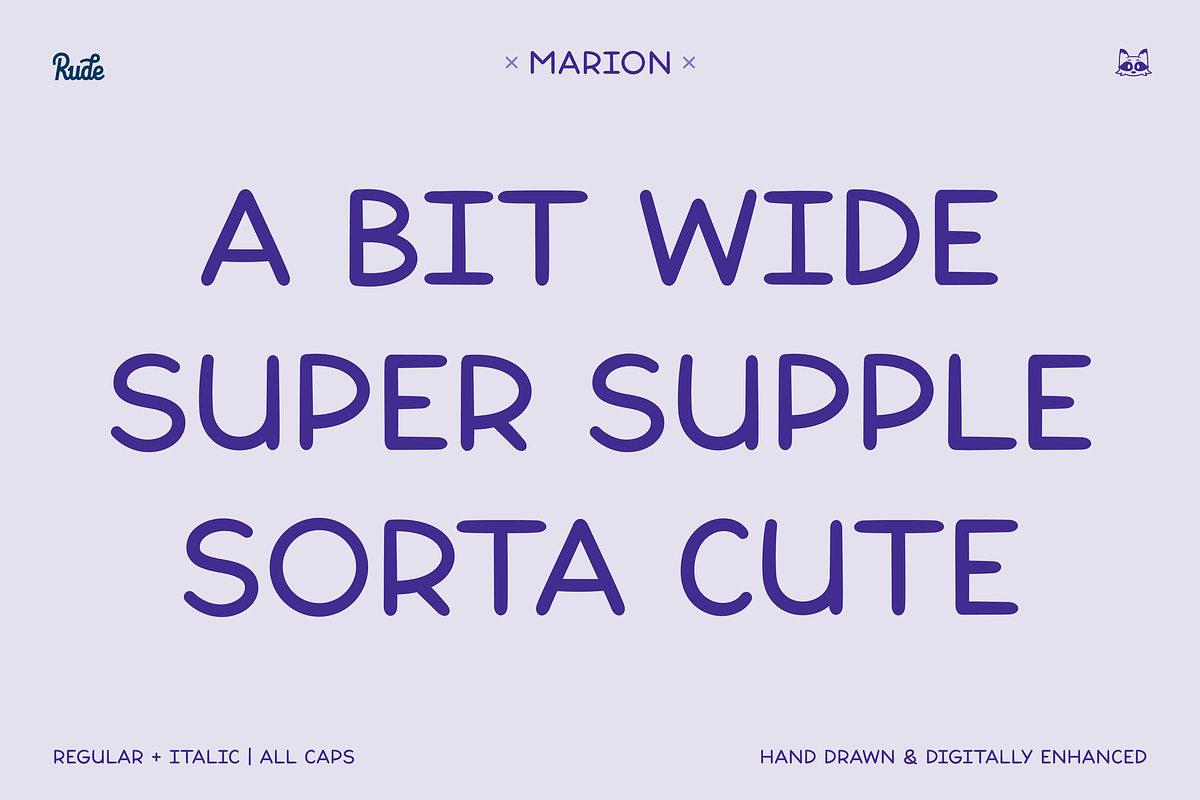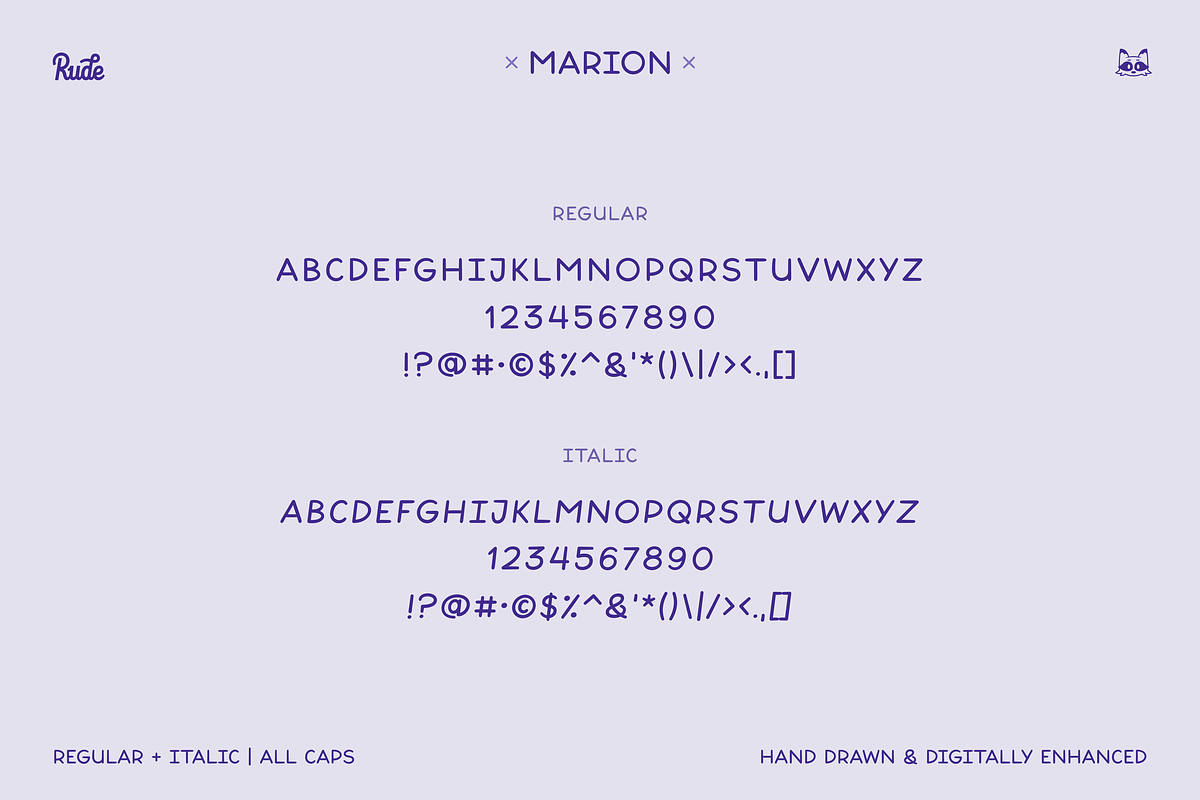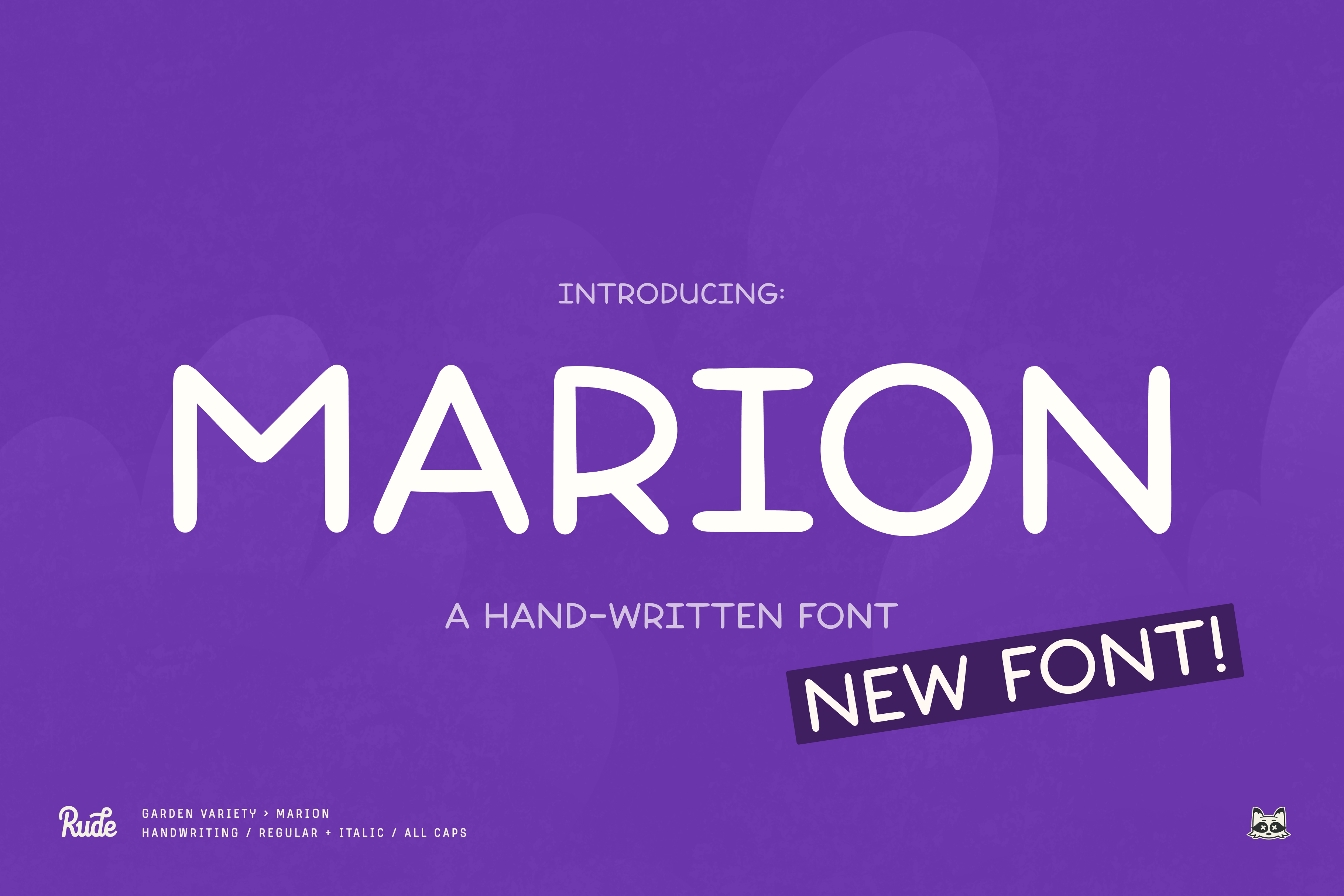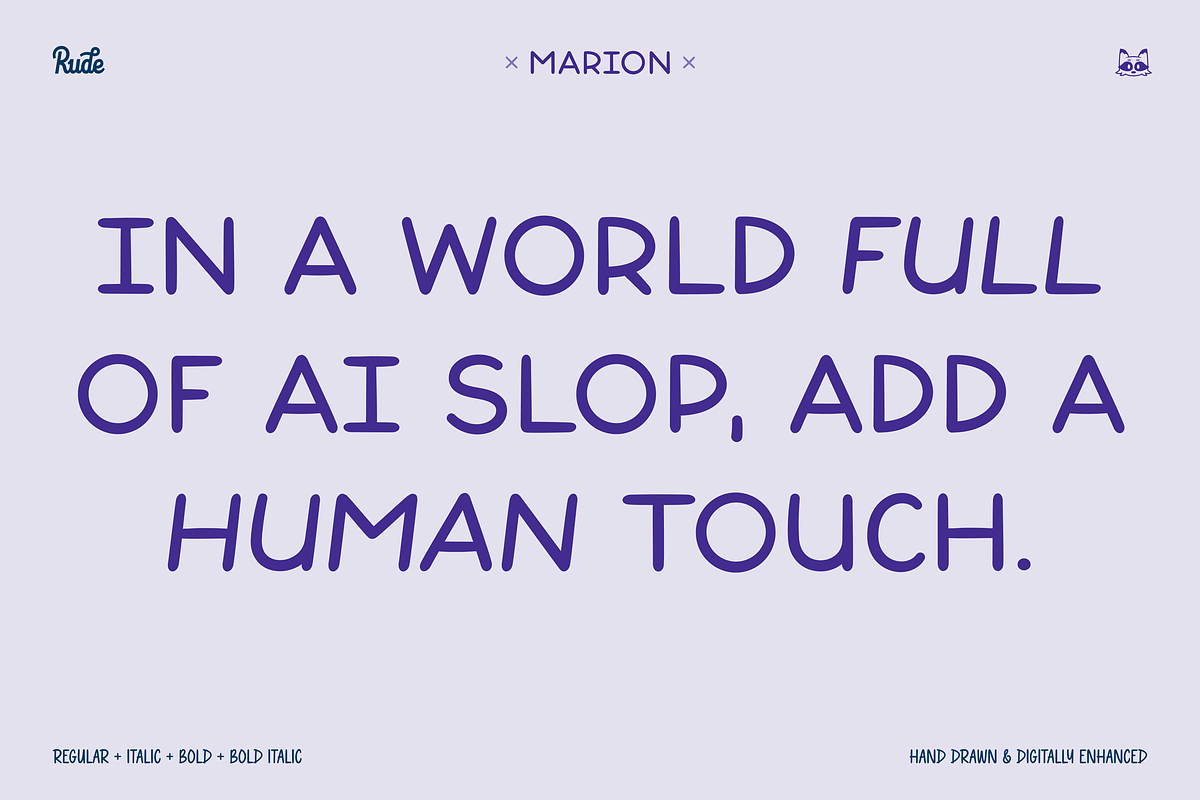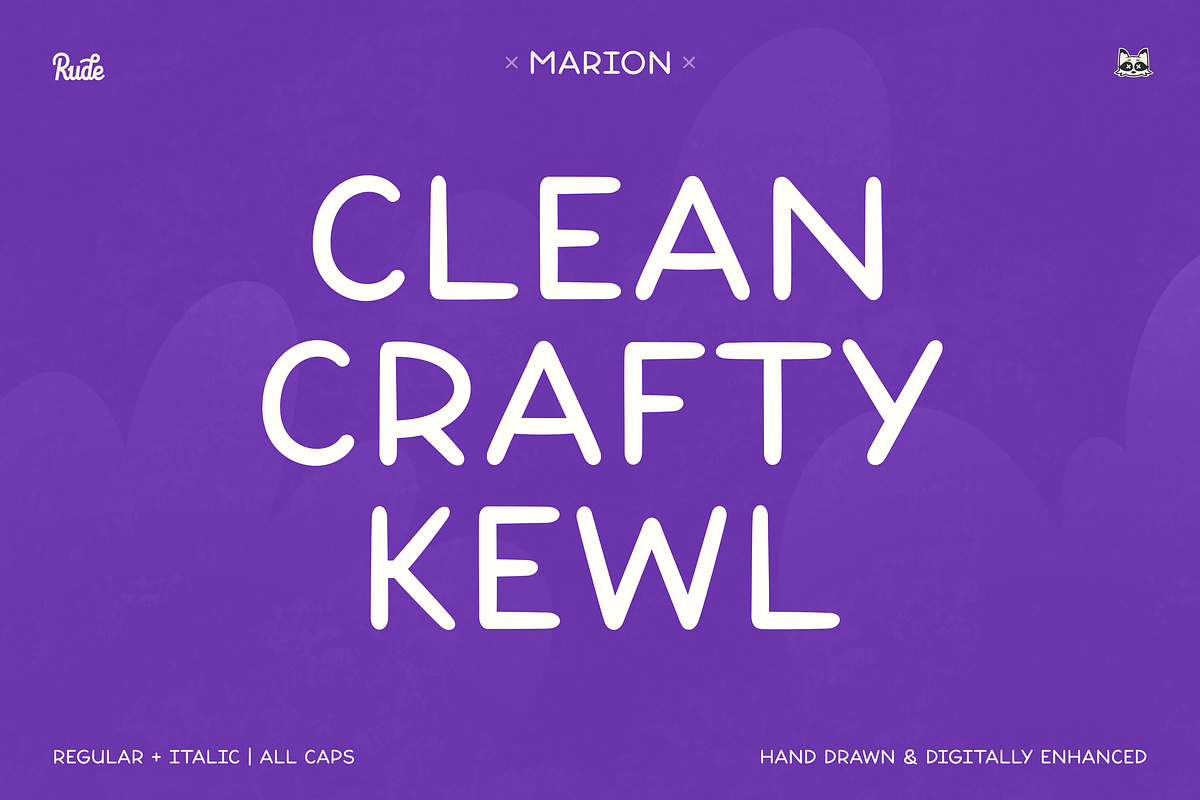
Marion Handwriting Font
Named after the marionberry, this handwriting font is designed to be delightful and fun, just like eating a marionberry. Marion was crafted from hand-drawn strokes and elements that create an imperfect, human-crafted touch while staying hyper-legible.
- Regular & Italic
- Created from hand-drawn elements
- Vectorized for optimal digital use